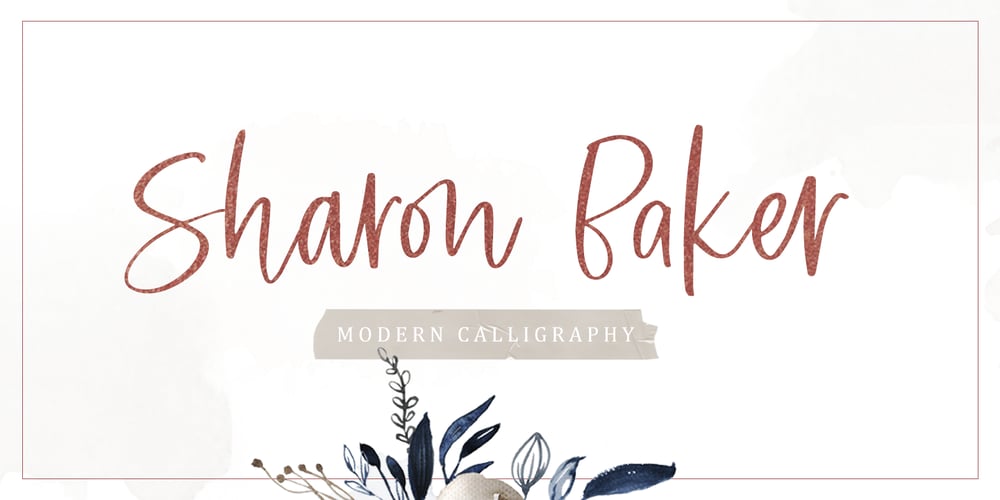
Sharon Baker Font Family was designed by Hendry Juanda, Sarid Ezra and published by Letterhend. Sharon Baker contains 1 styles and family package options. Sharon Baker a modern script that has a bright, lovely feeling. The natural hand written script is suitable for everyone who needs a typeface for headlines, logotype, apparel, invitations, branding, packaging, advertising, and more. This typeface is comes in uppercase, lowercase, punctuation, symbols, numbers, stylistic set alternate, ligatures, also contains multi-lingual support.